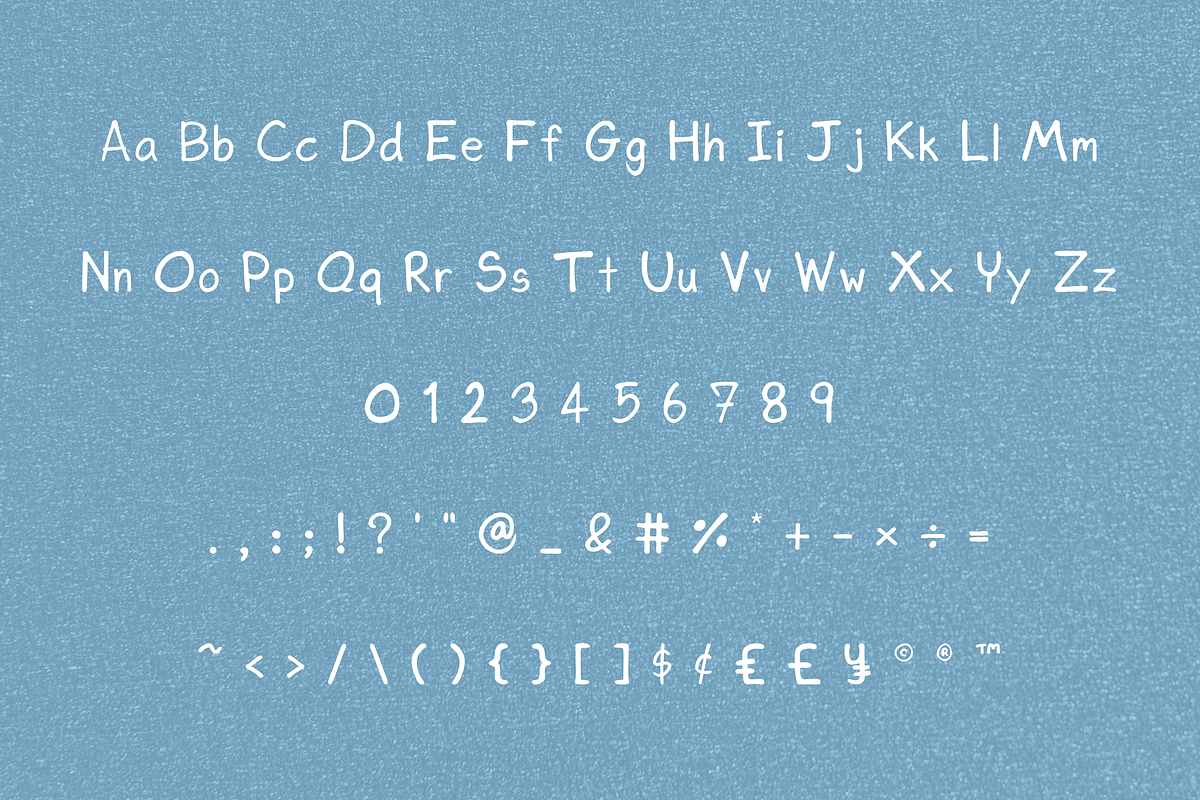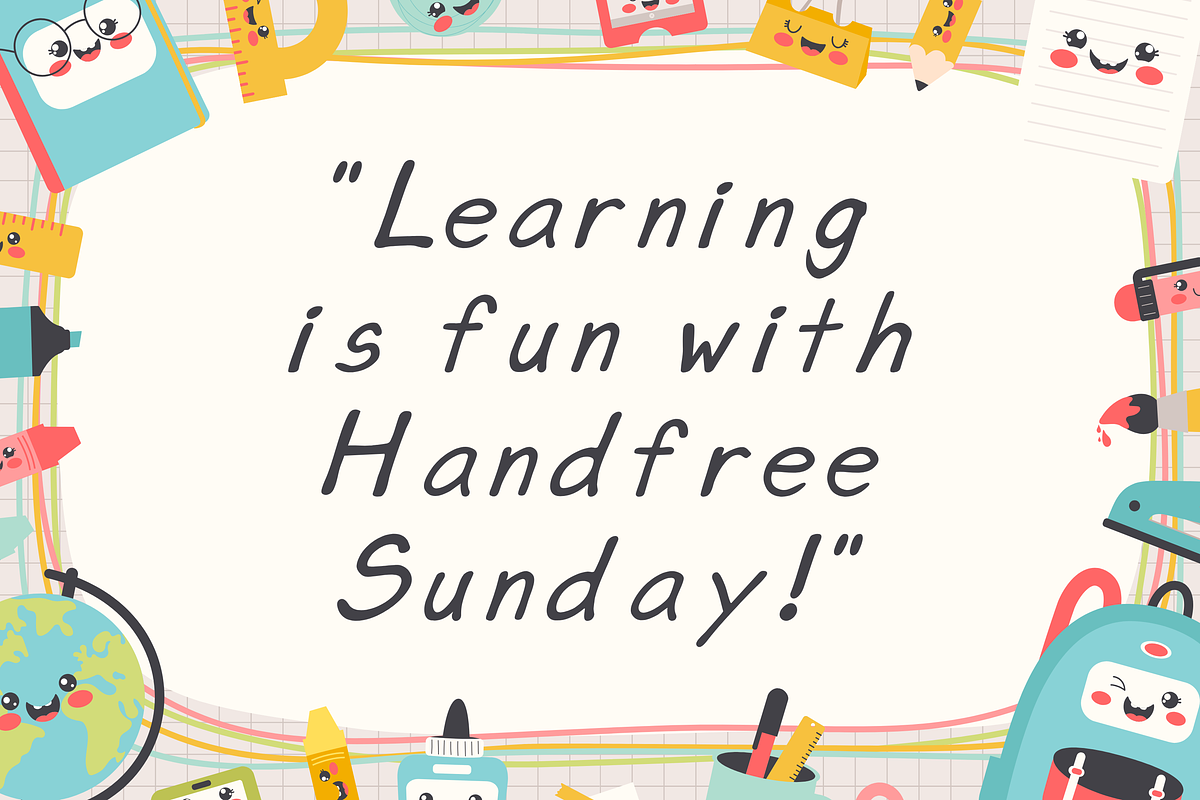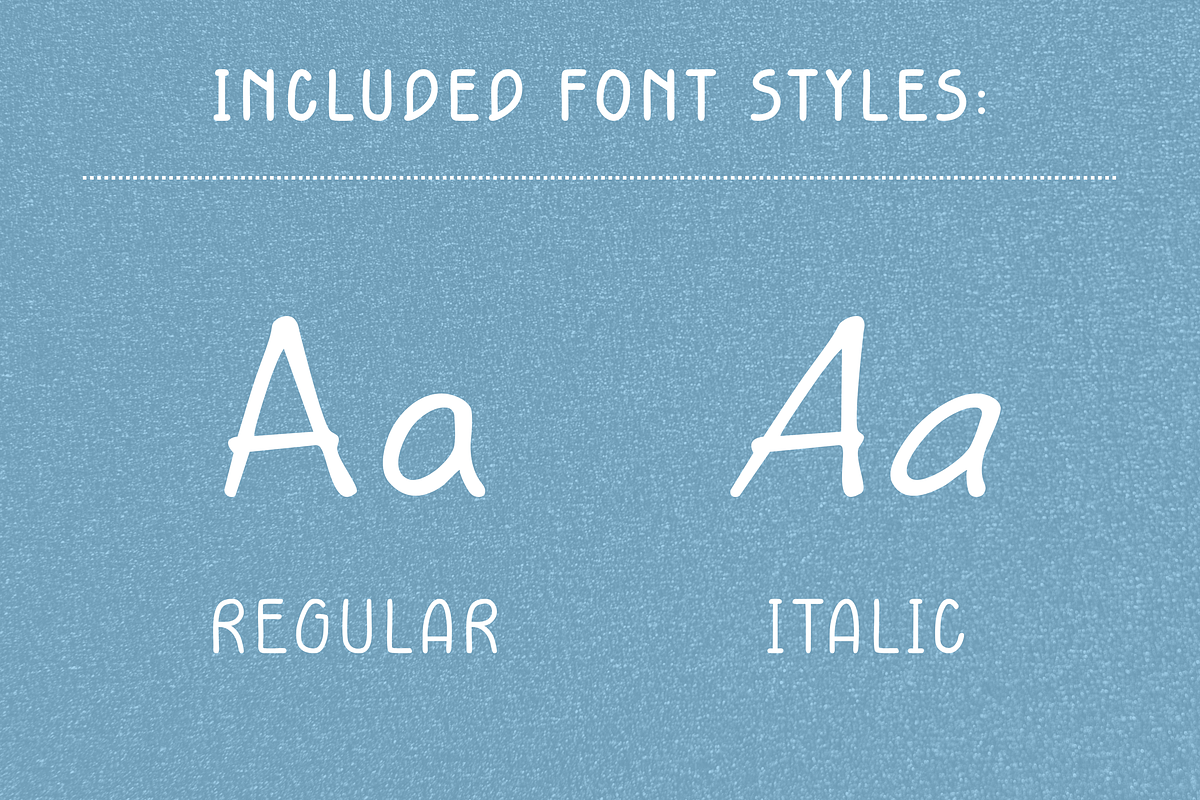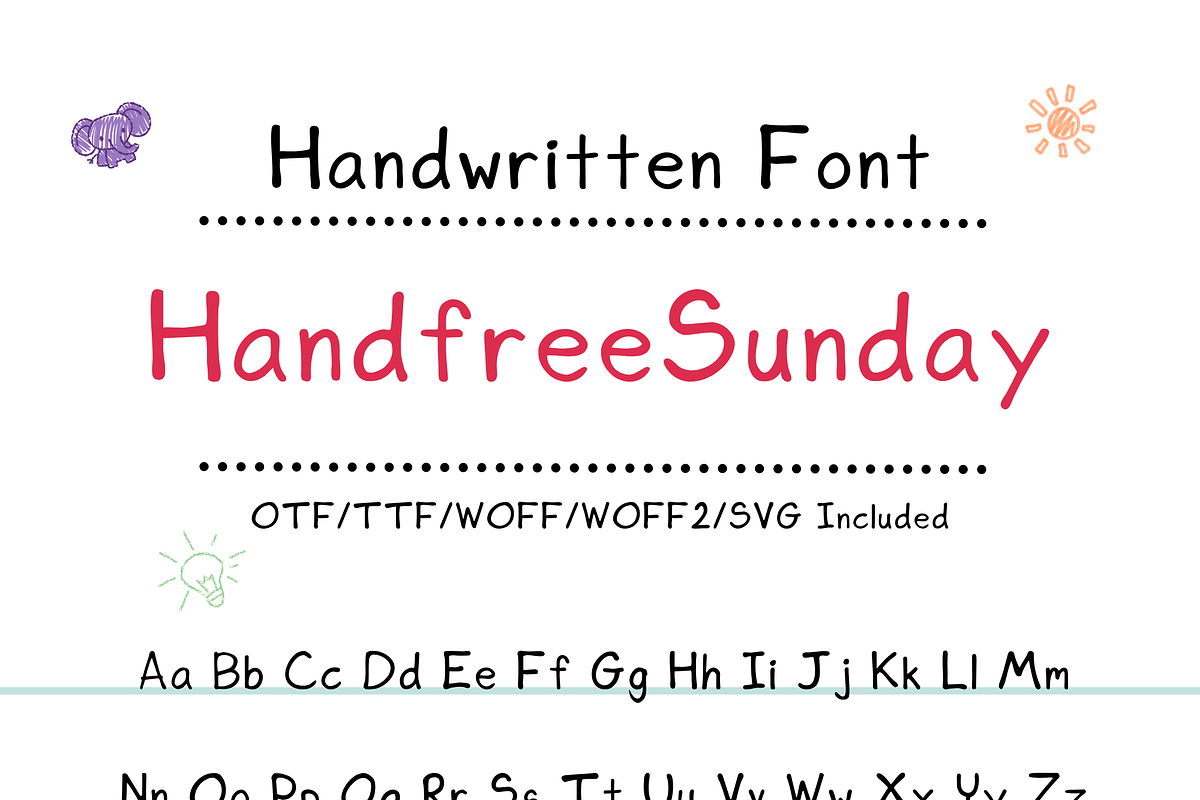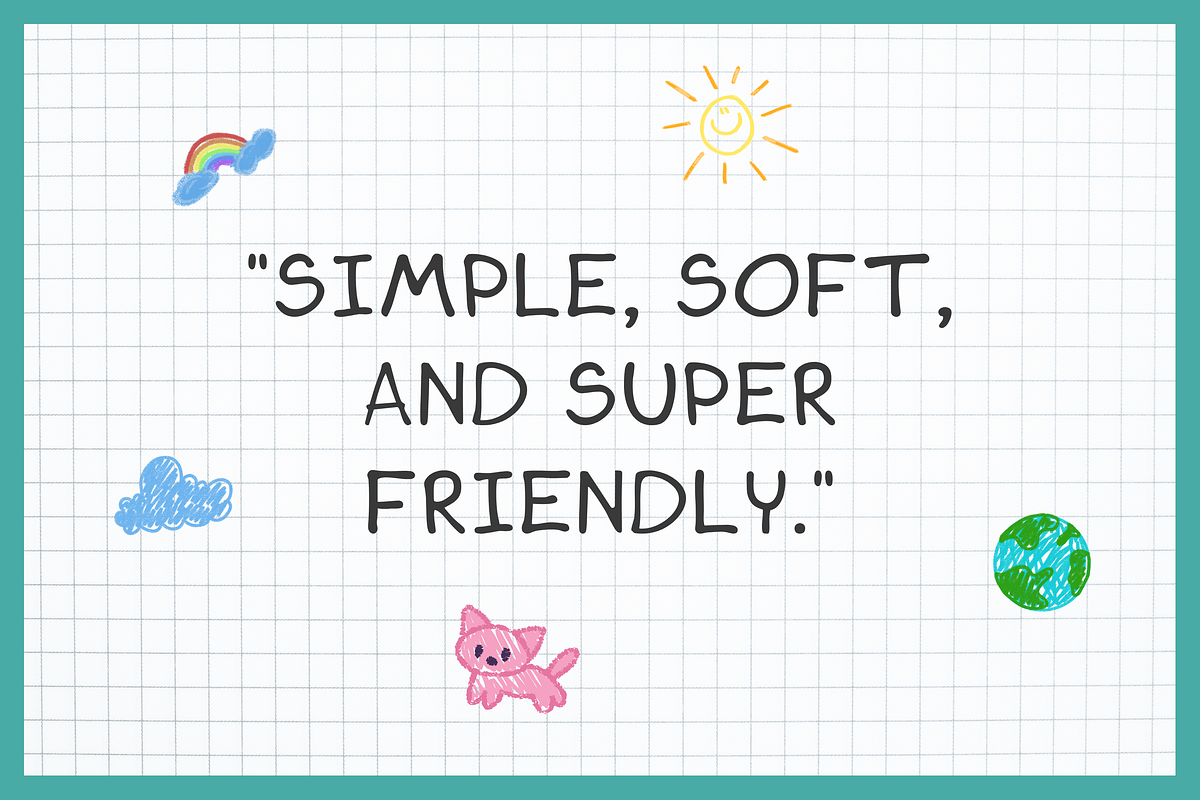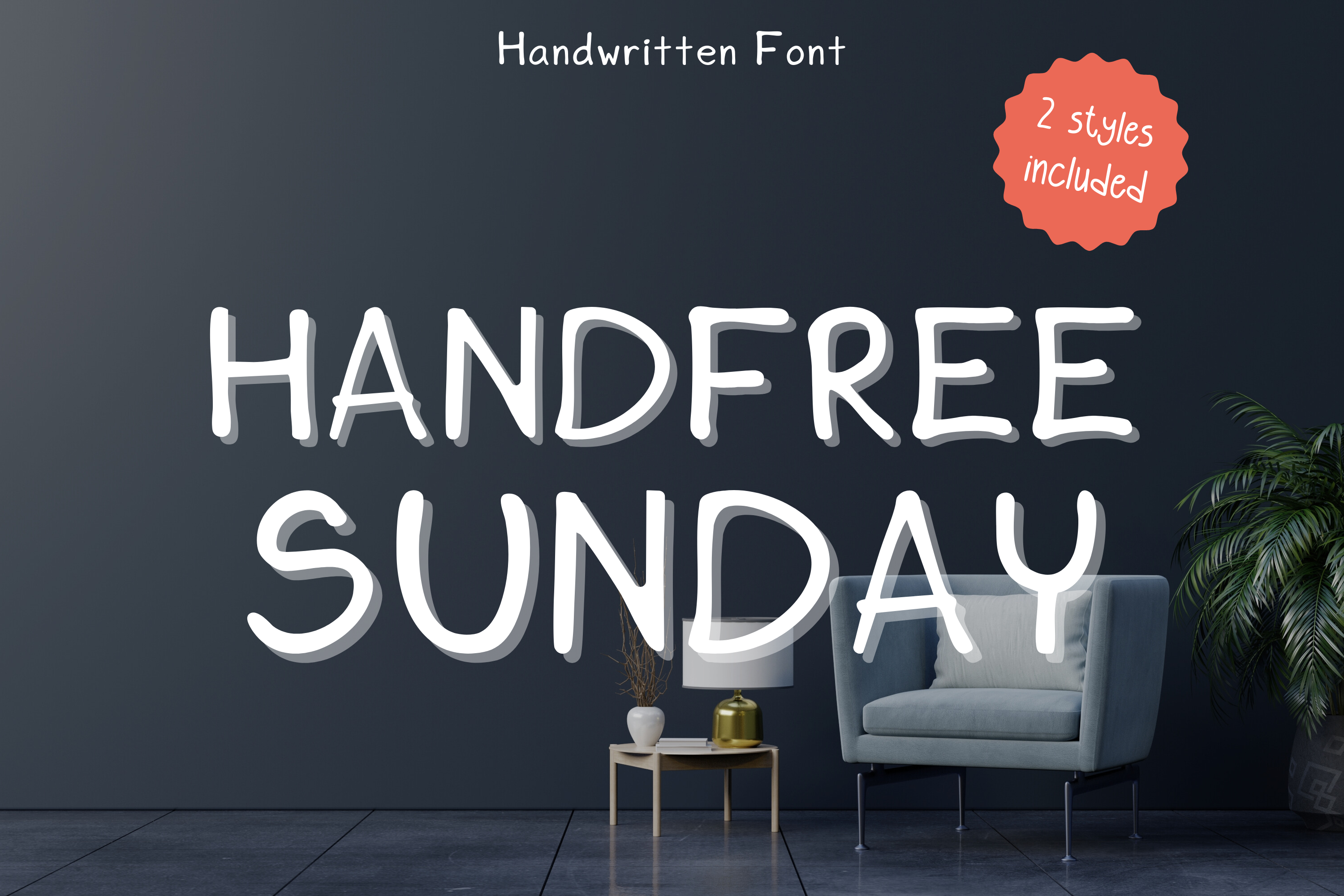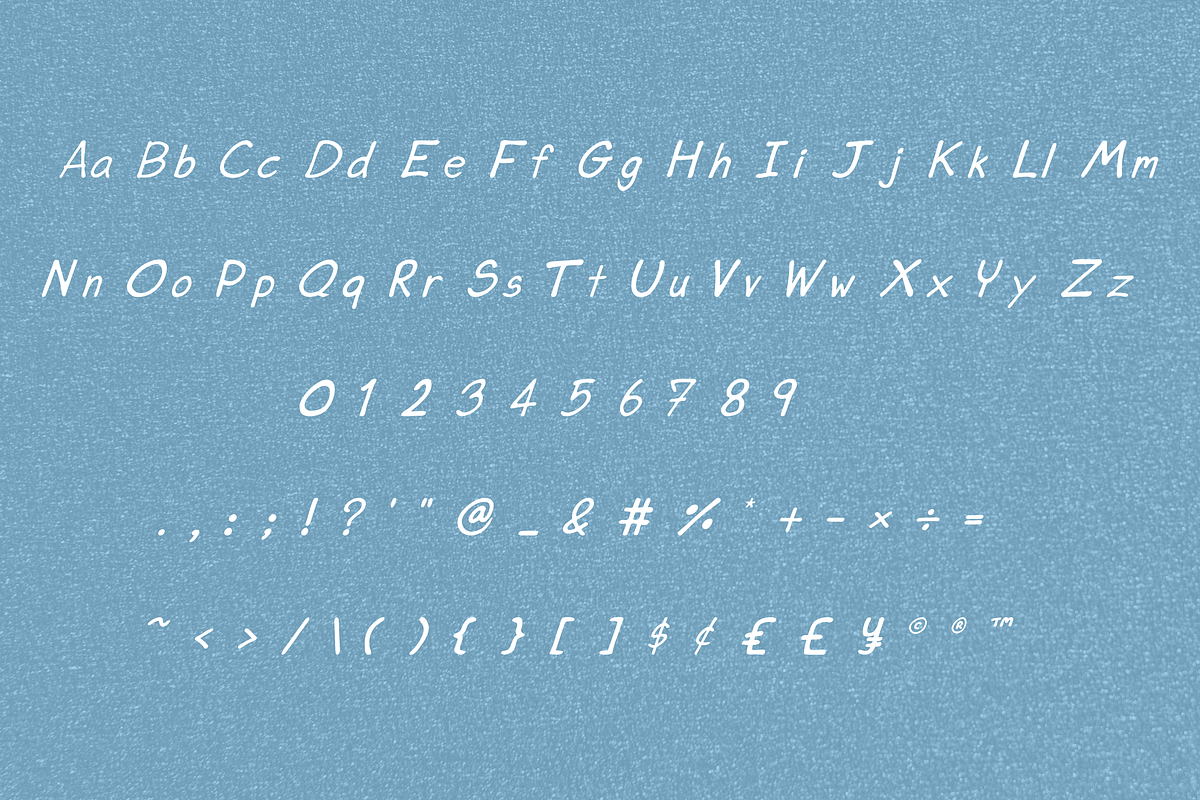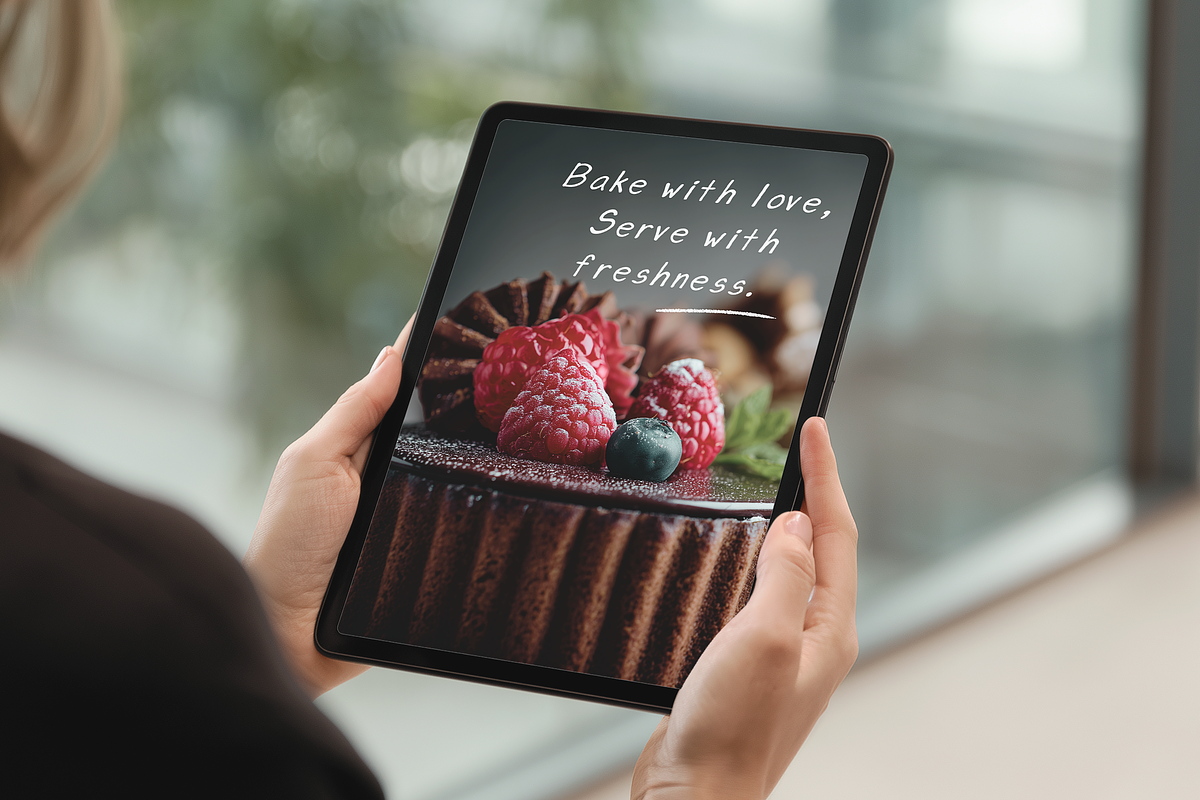
Handwritten Font - HandfreeSunday
HandfreeSunday – A Whimsical Handwritten Font for Creative Souls!
Add a playful, handwritten charm to your designs with HandfreeSunday – a cute and clean font perfect for digital creatives, crafters, and small business owners. Whether you're designing in Cricut, Procreate, Canva, or other editing tools, this versatile font brings a friendly, approachable vibe to your projects.